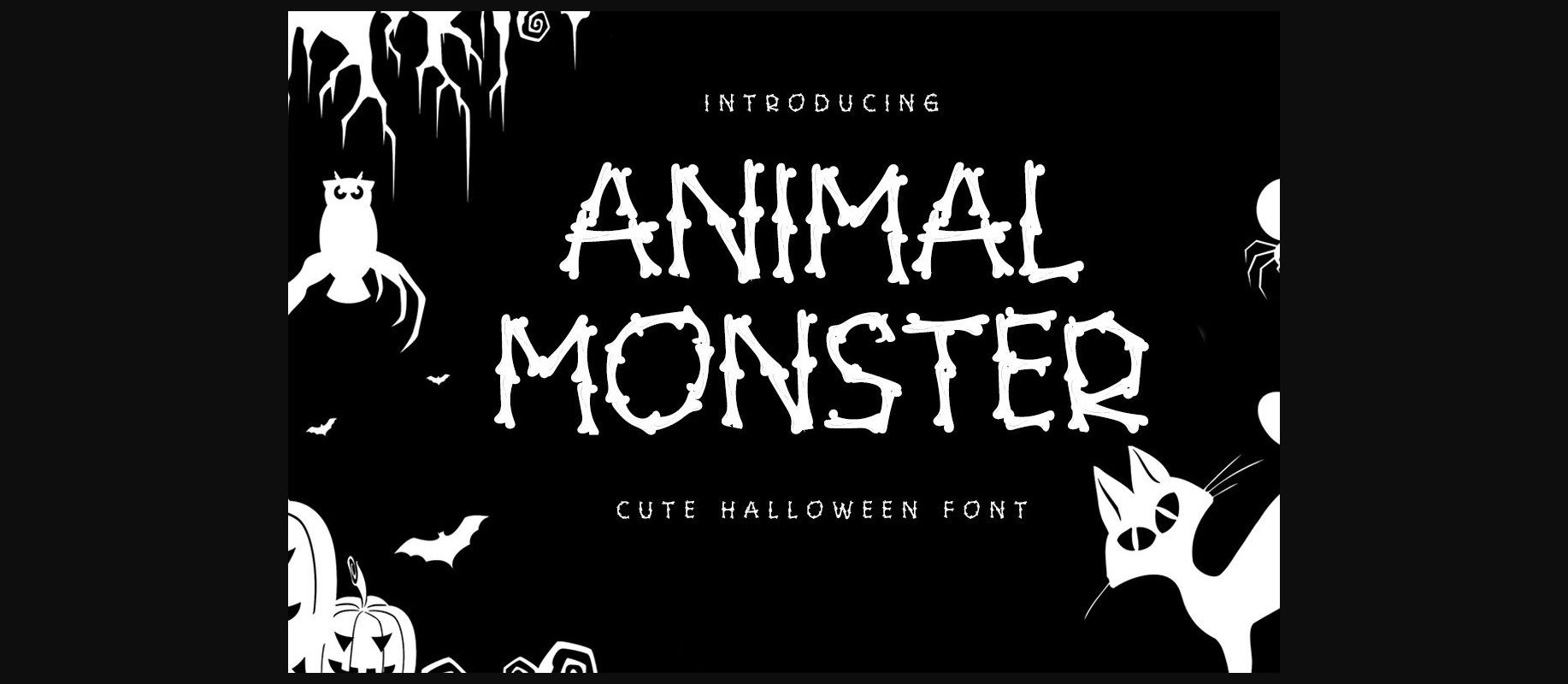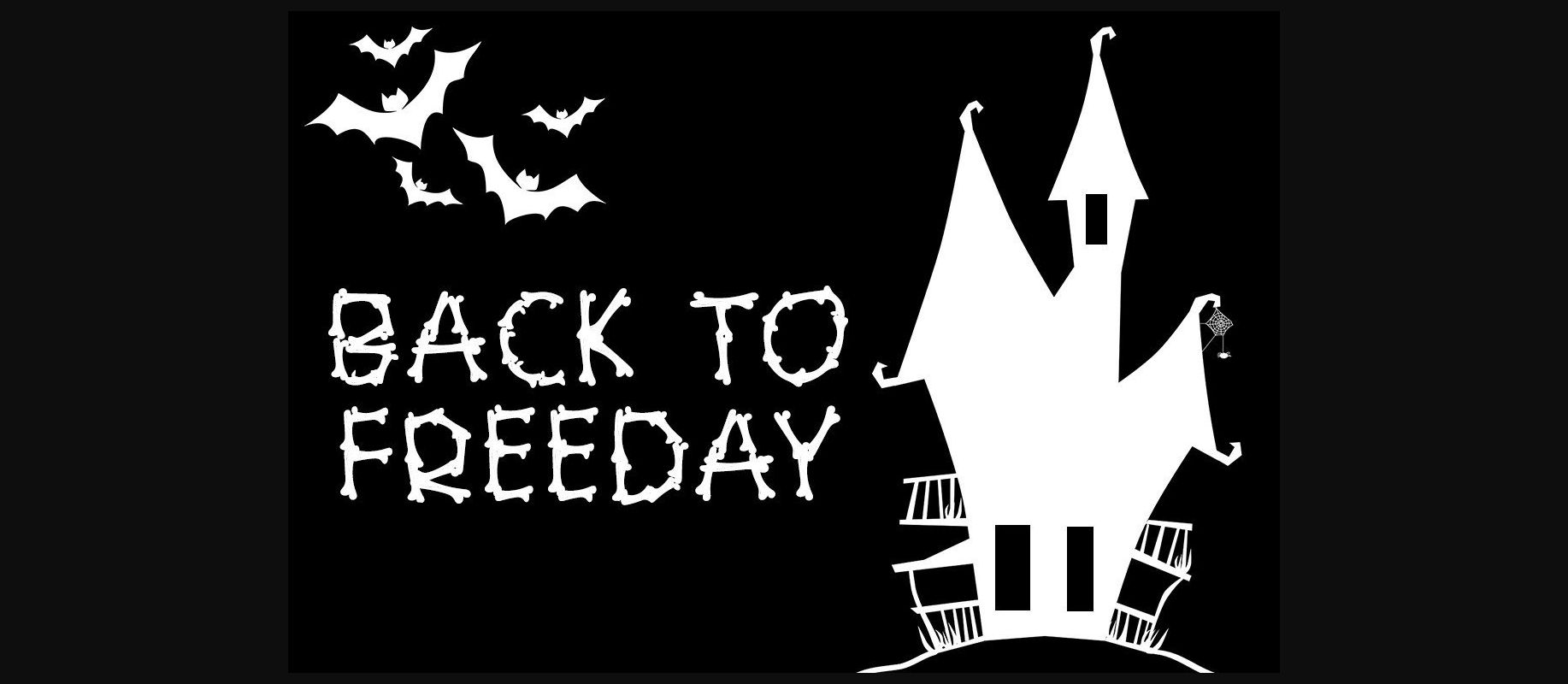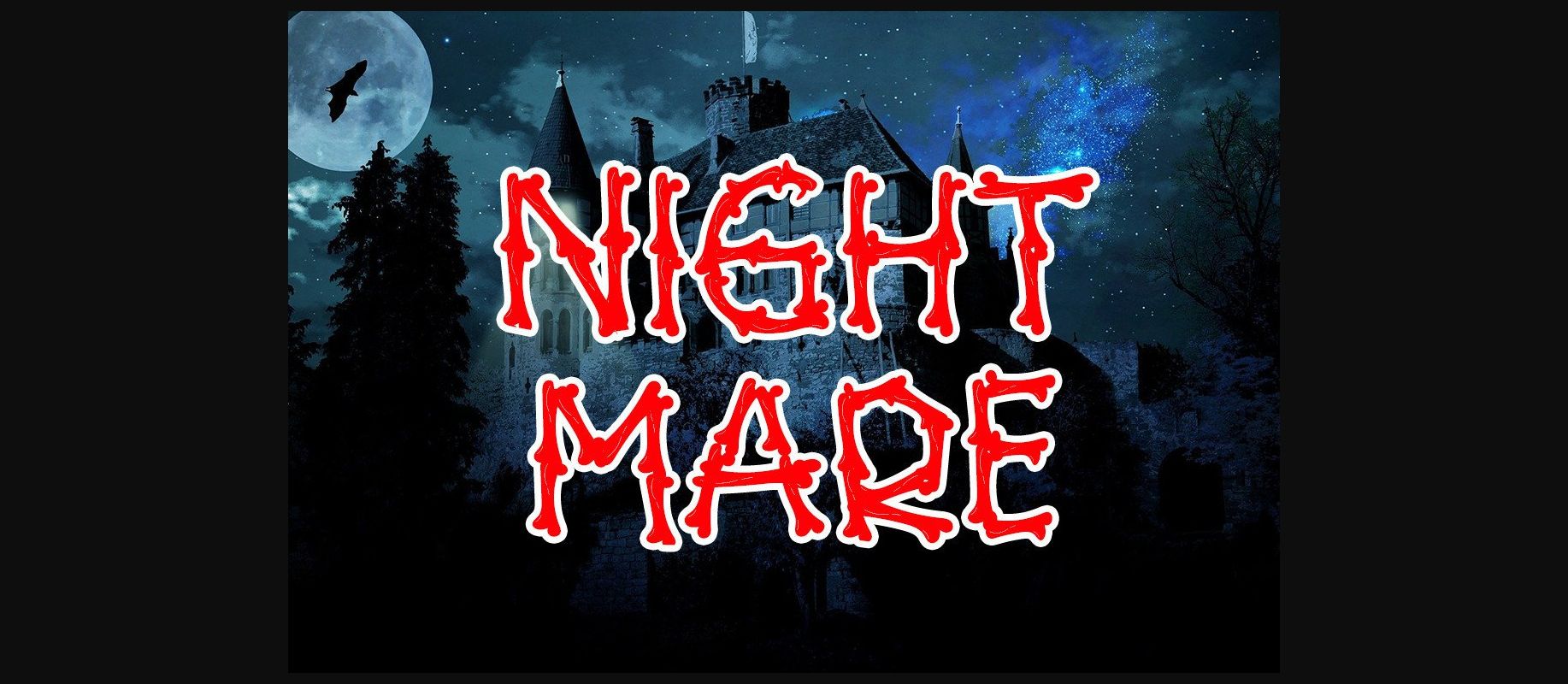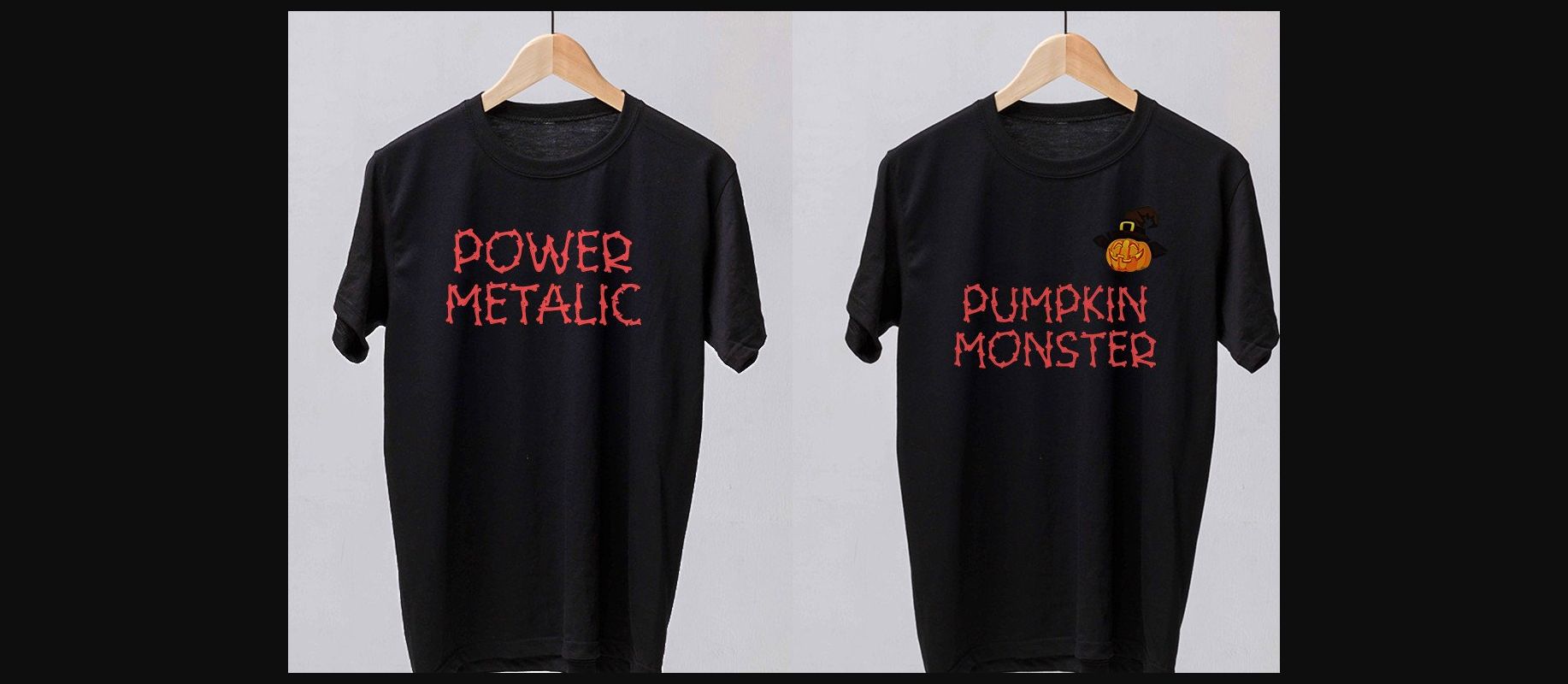
Animal Monster is a spooky and creative decorative font suitable for eerie projects! Add it to Halloween storybooks, spooky product packaging, or children-related designs.